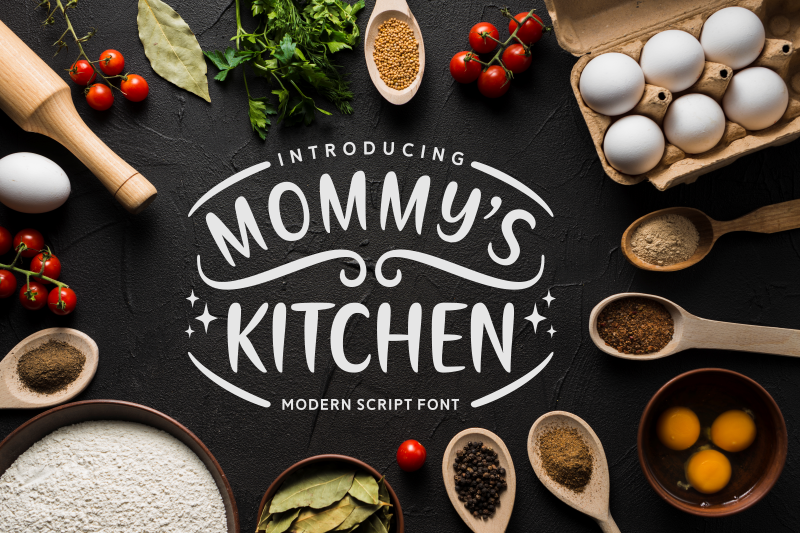
Mommy’s Kitchen Script
Mommy’s Kitchen Script Font
Mommy’s Kitchen is a stunning, neat font that comes with lot’s of ornamental extra’s.
It’s very easy to read, and works great for personal home-made projects.